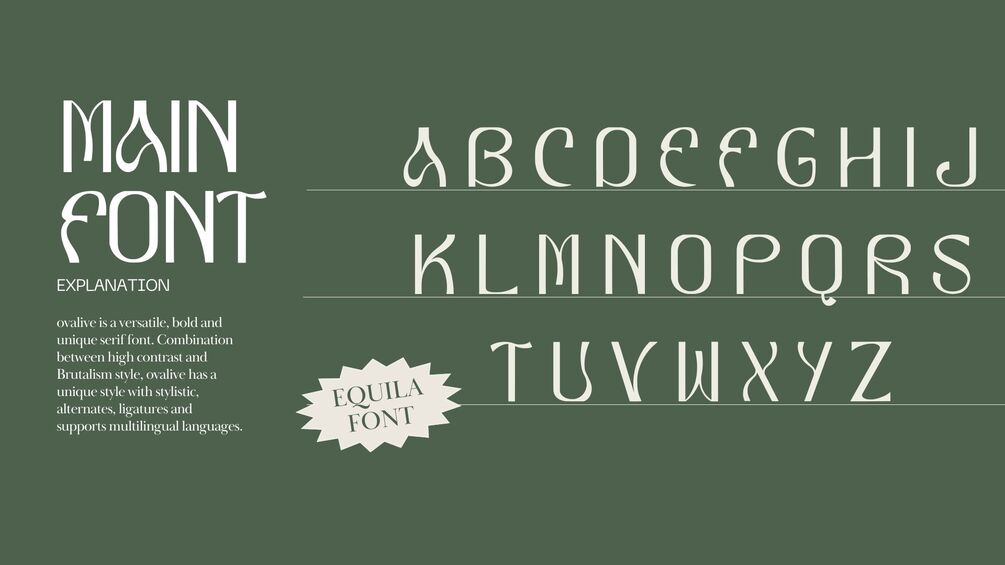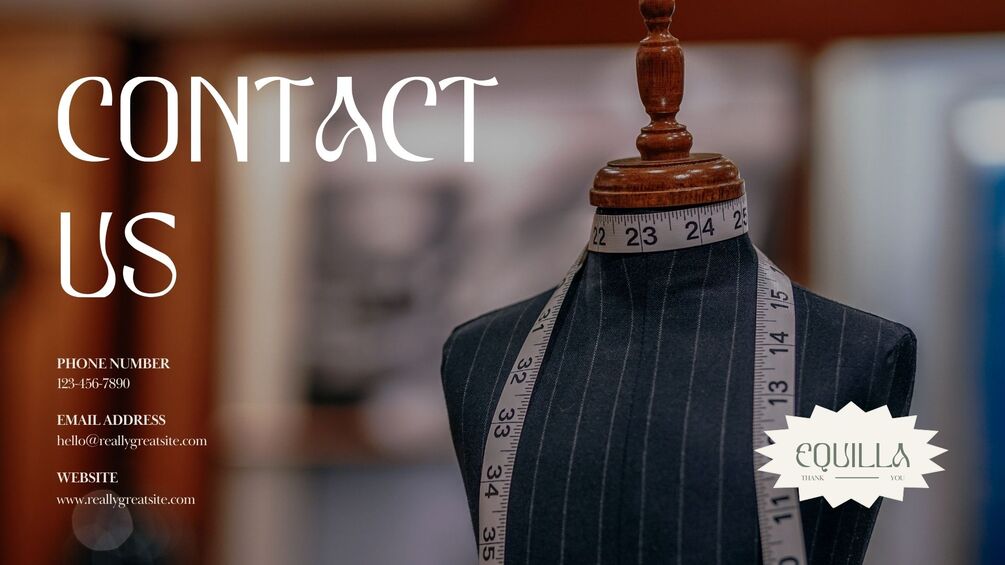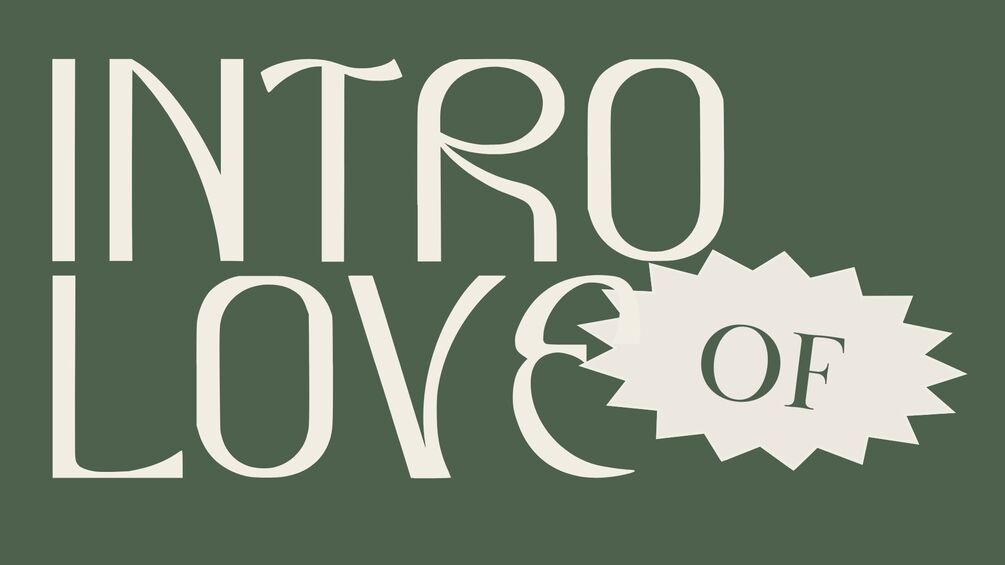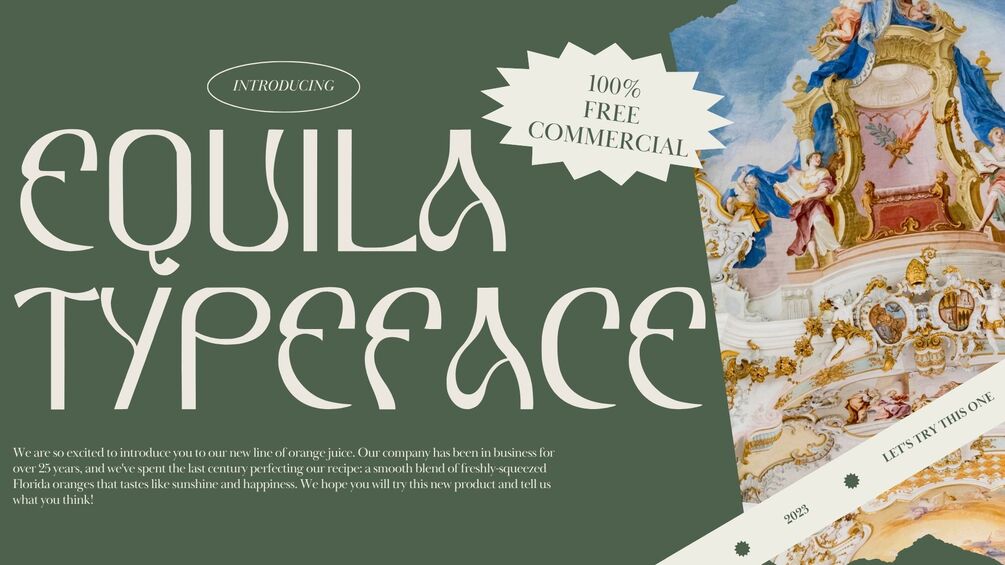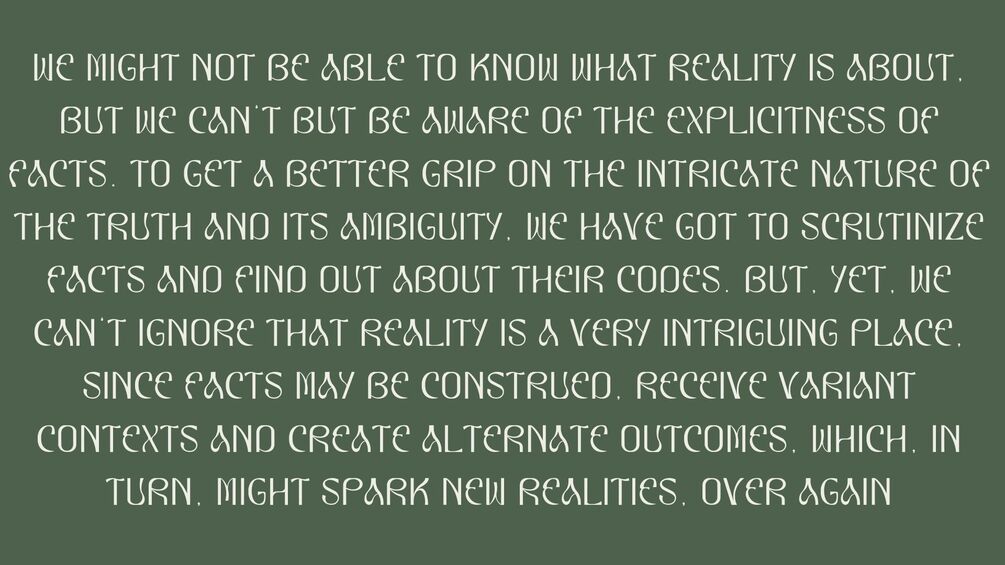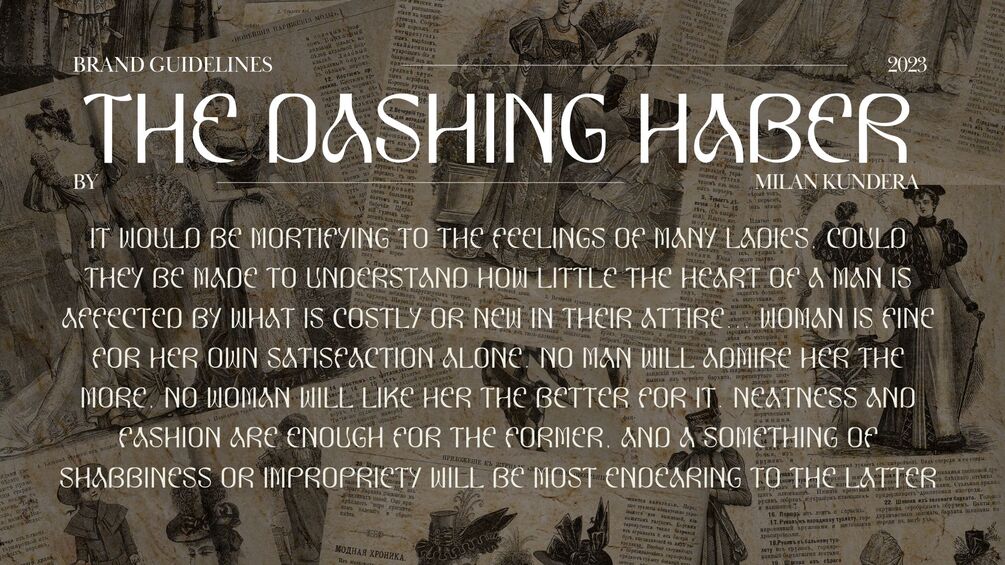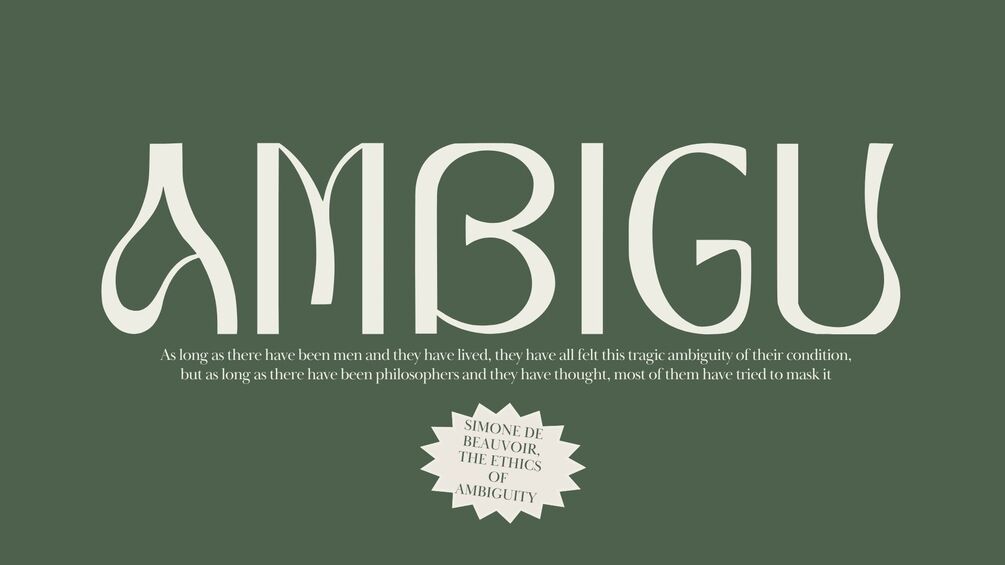
Equilla Typeface
Equilla is a versatile, bold and unique serif font. Combination between high contrast and Brutalism style, Equilla has a unique style with stylistic, alternates, ligatures and supports multilingual languages.